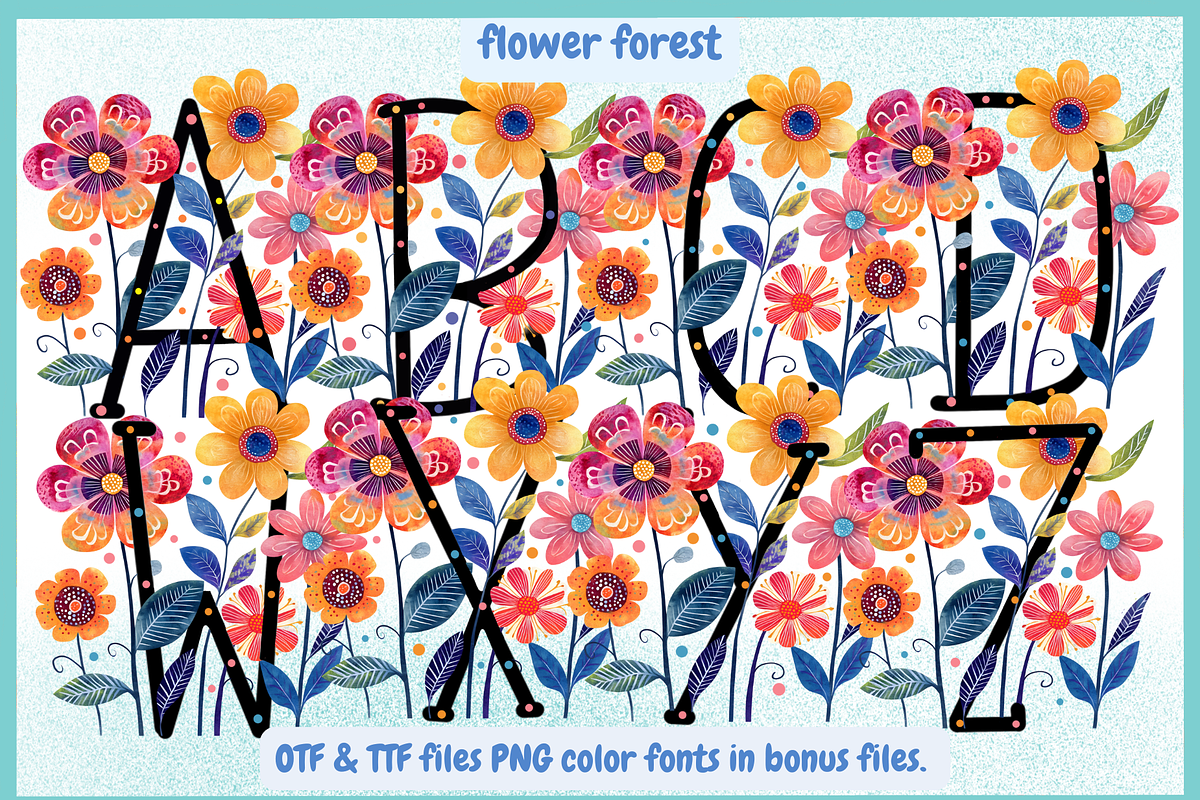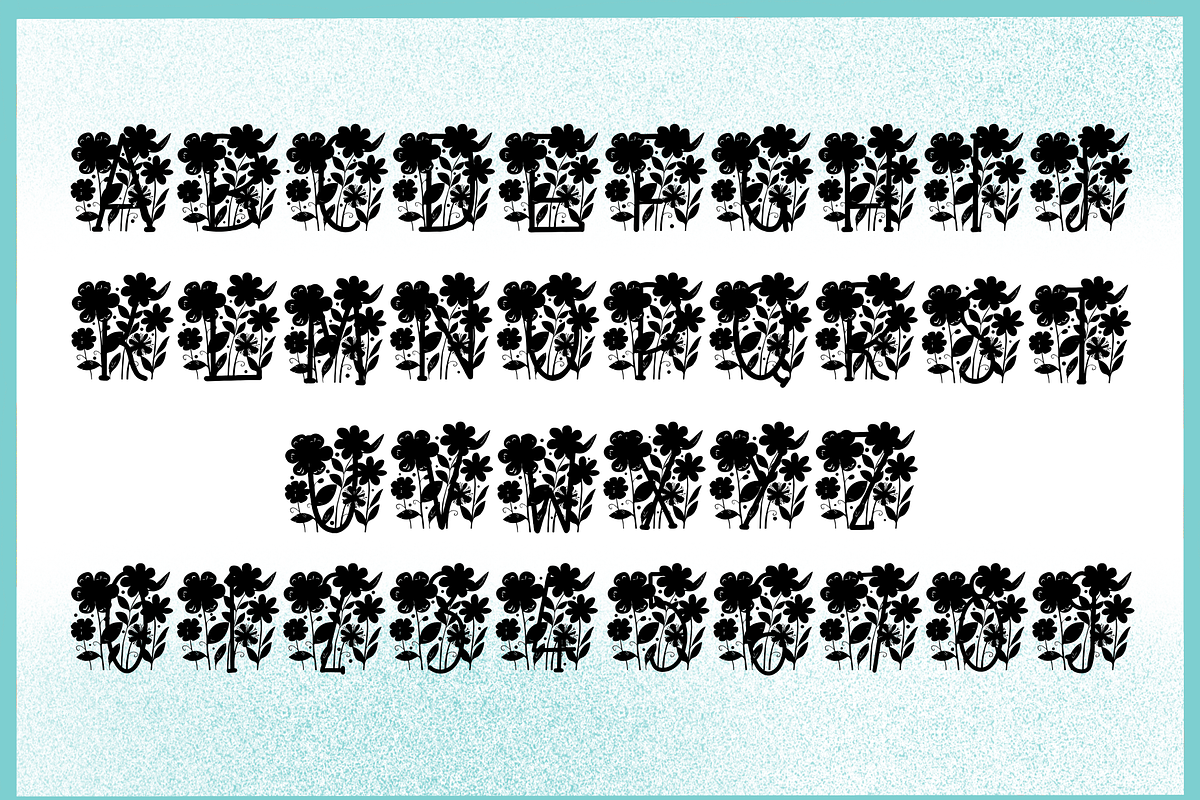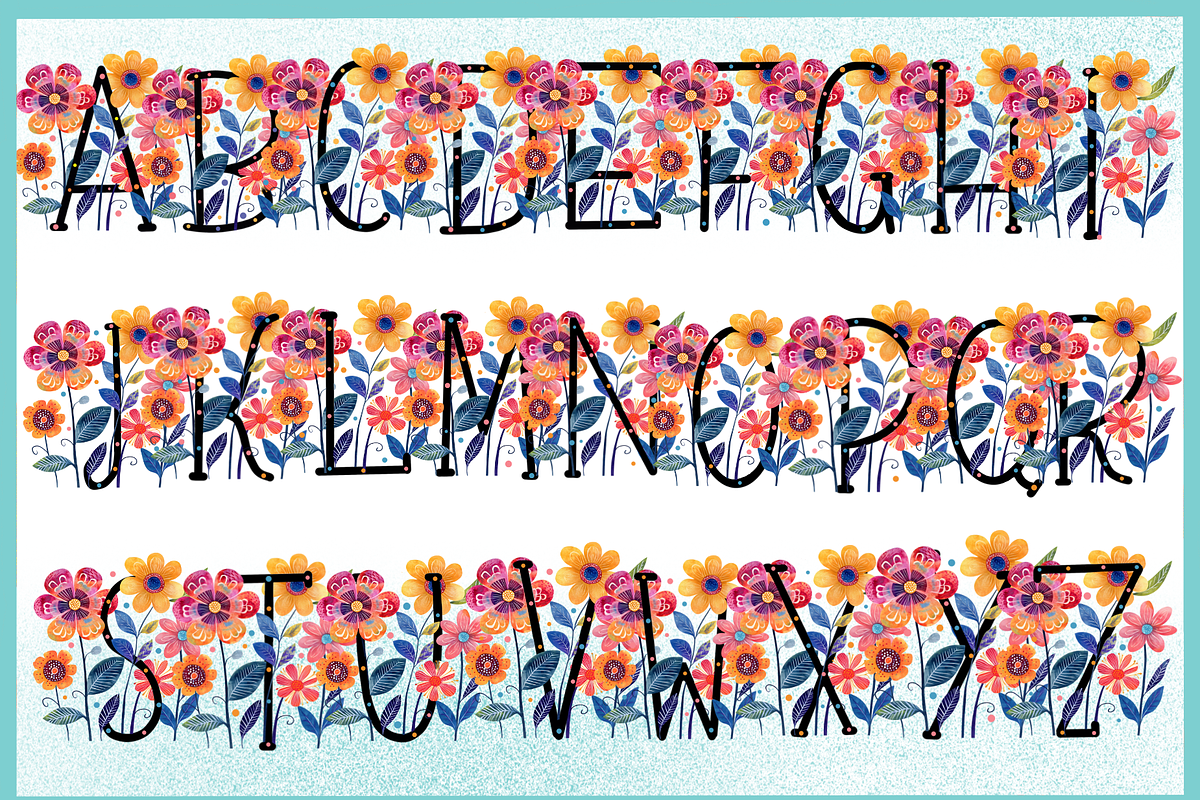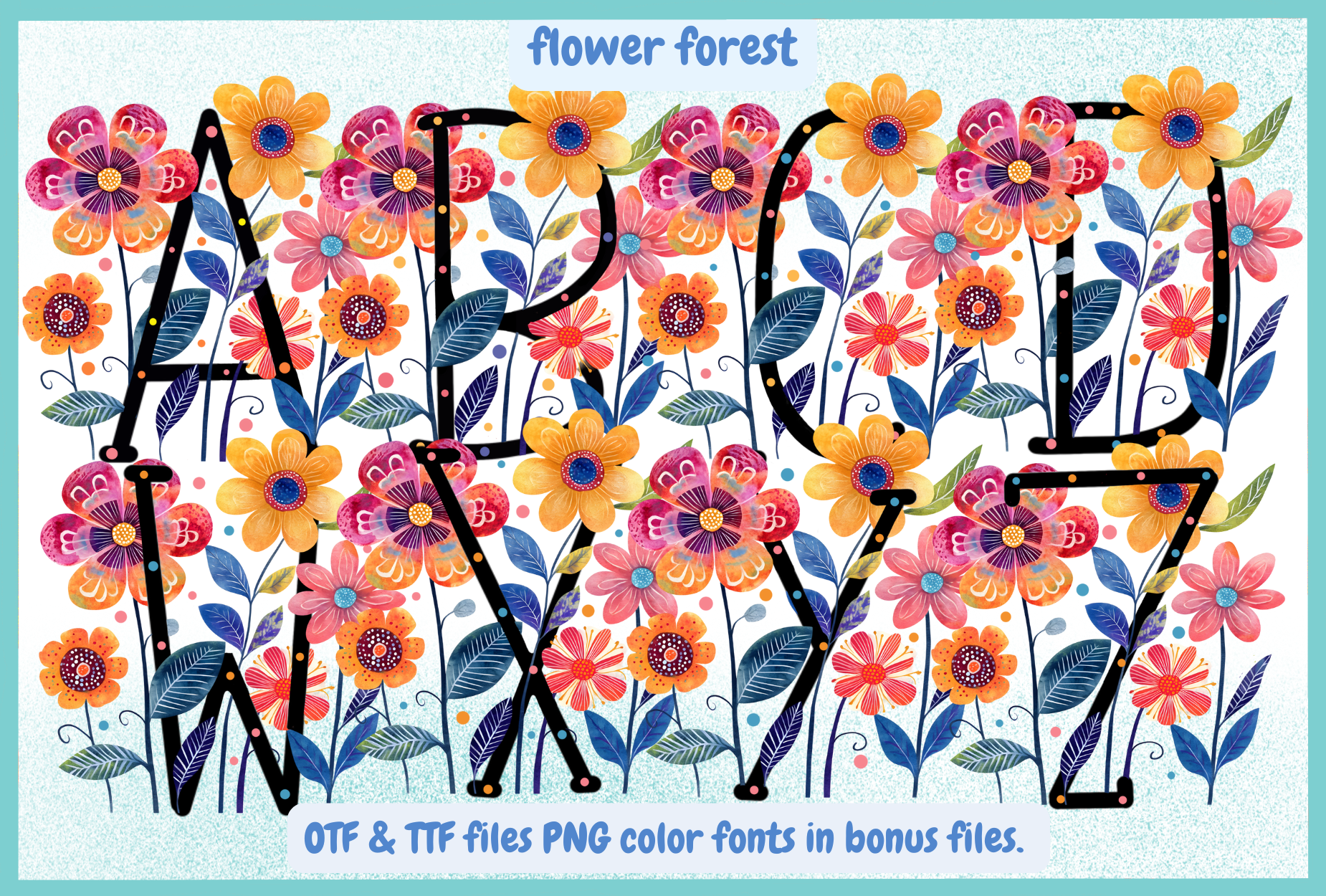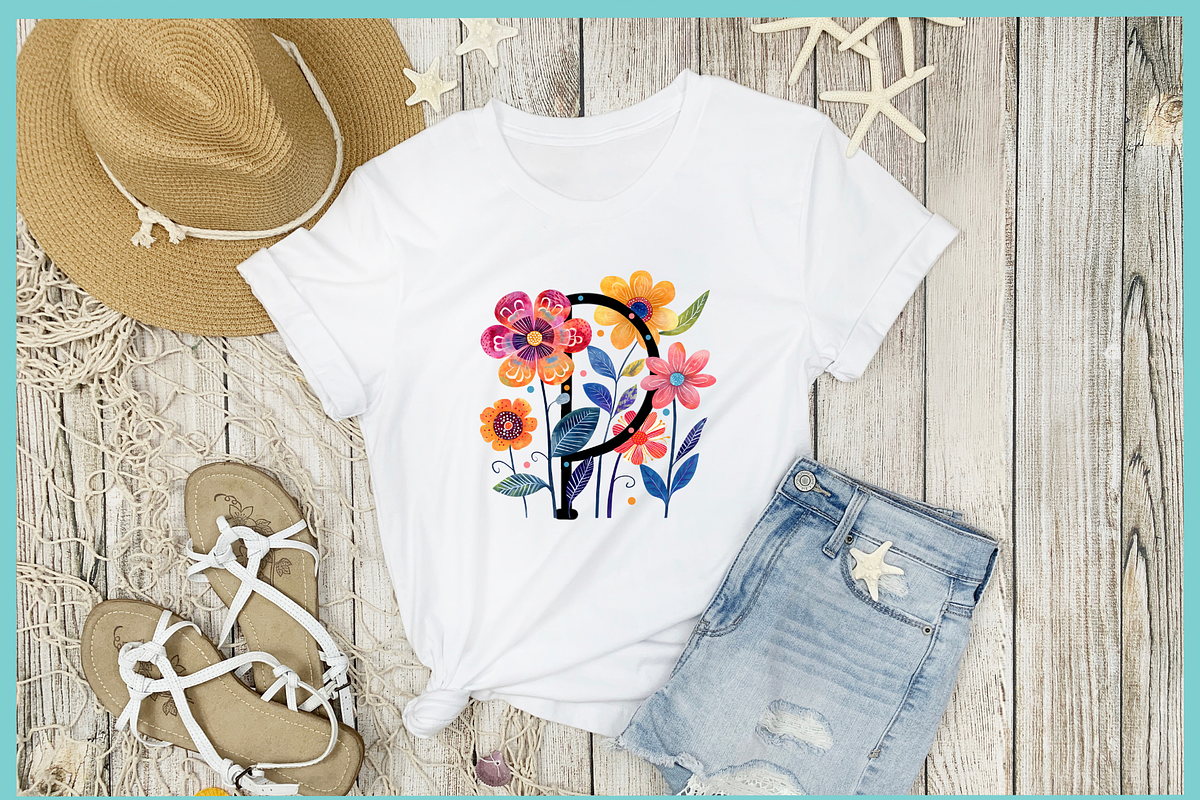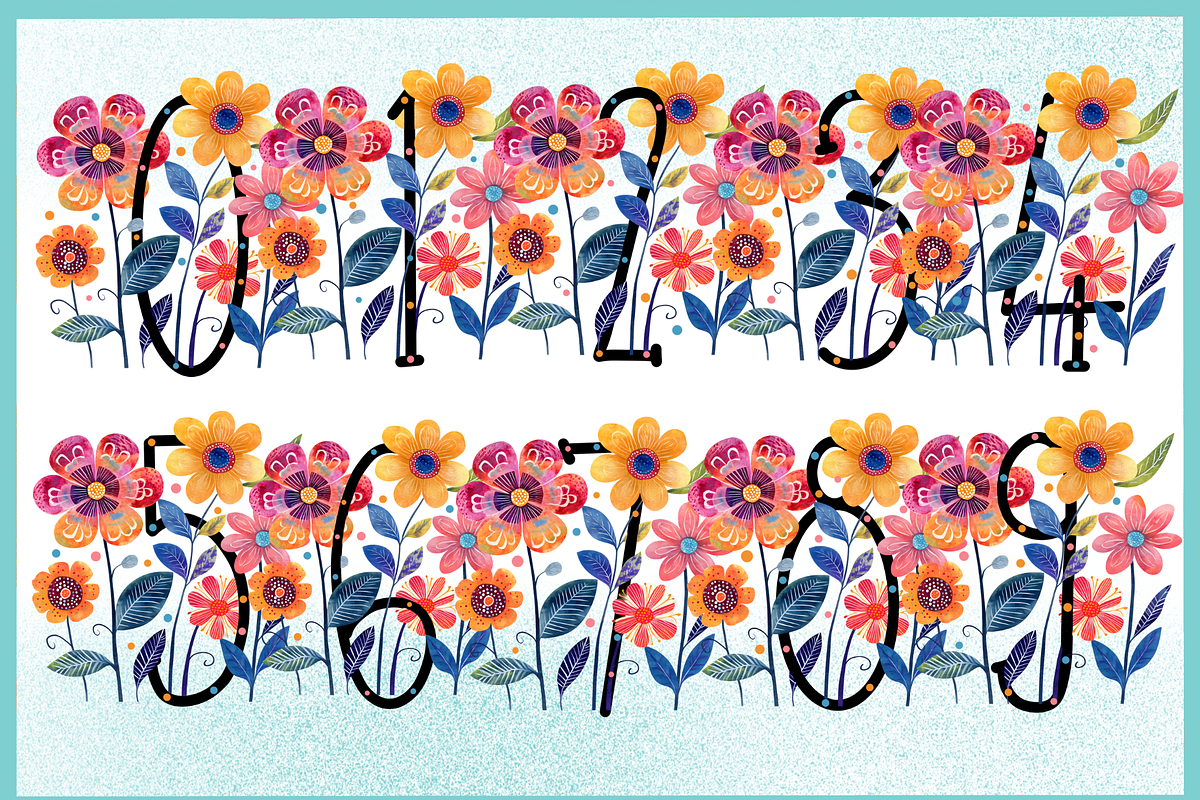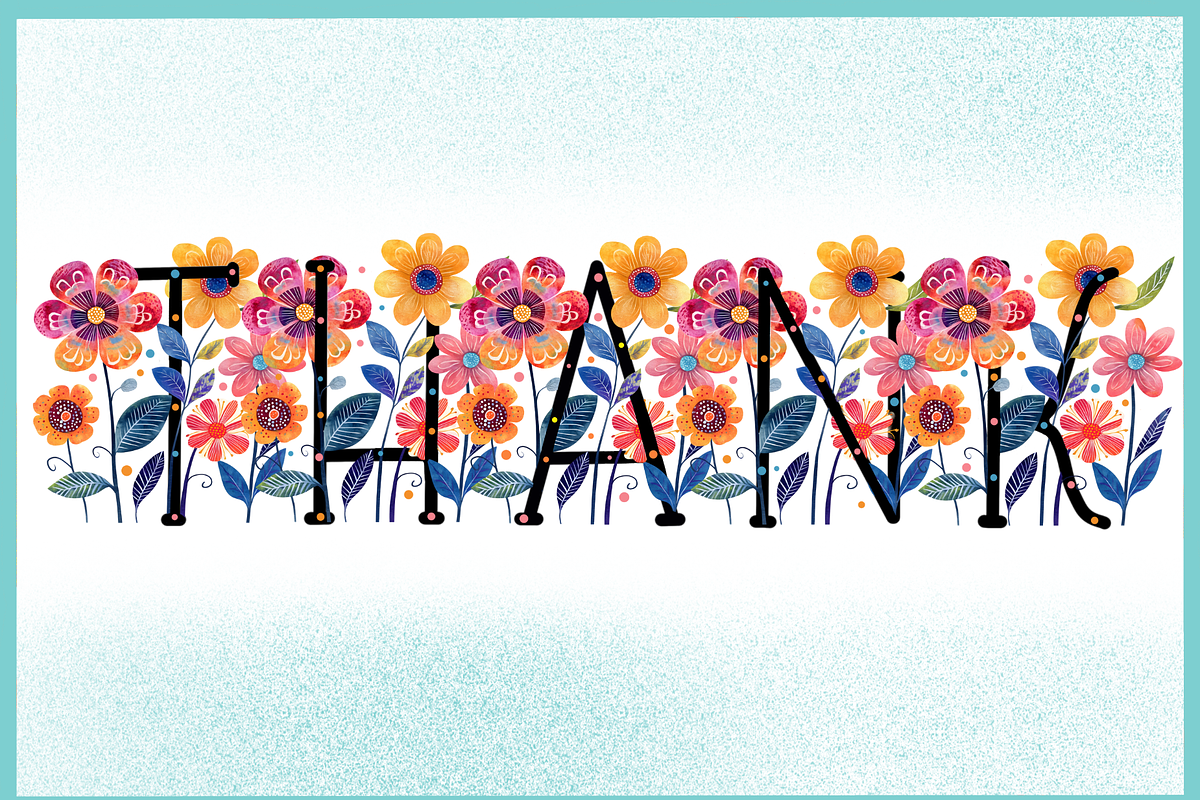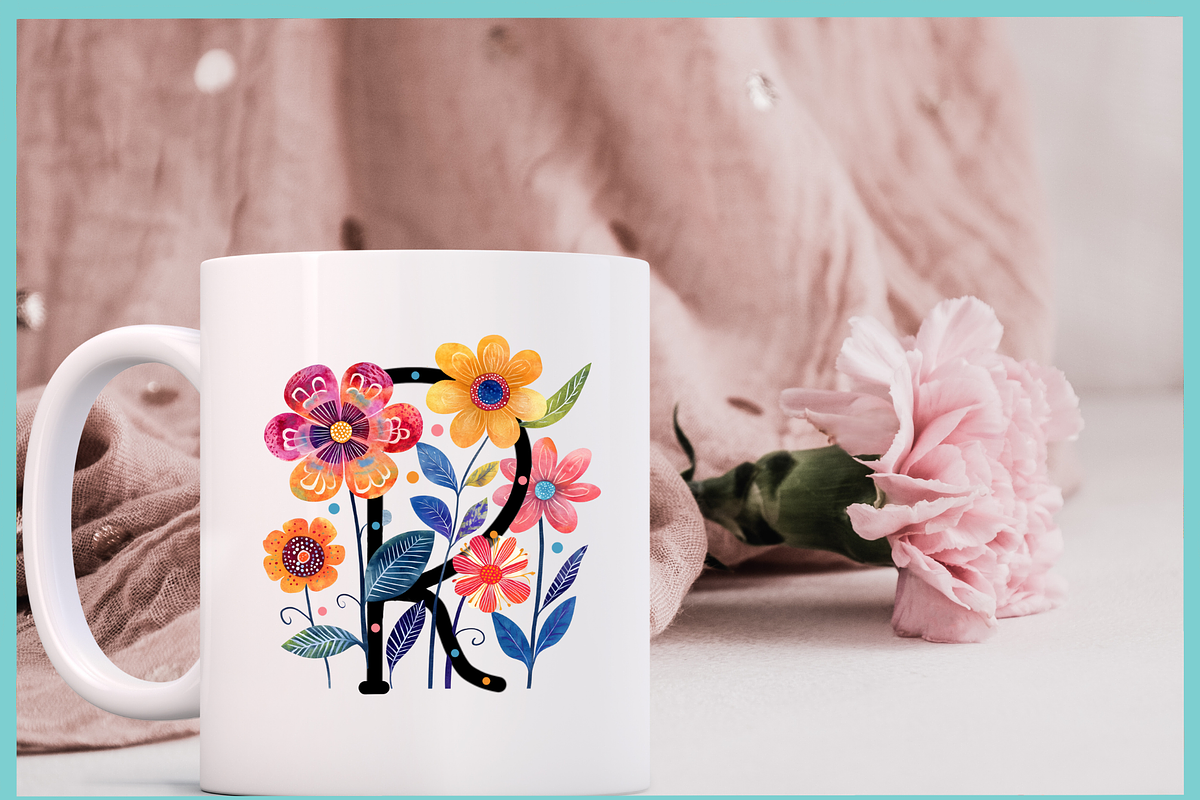
Flower Forest-PNG fonts
Flower Forest Font “Flower Forest” is a whimsical floral display font bursting with color and charm. Each letter is elegantly interwoven with vibrant, hand-painted flowers and foliage, creating a delightful botanical alphabet.